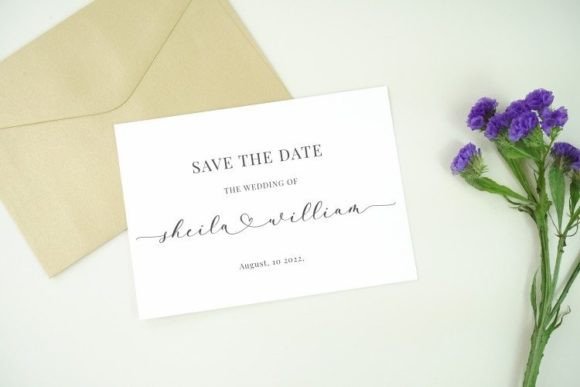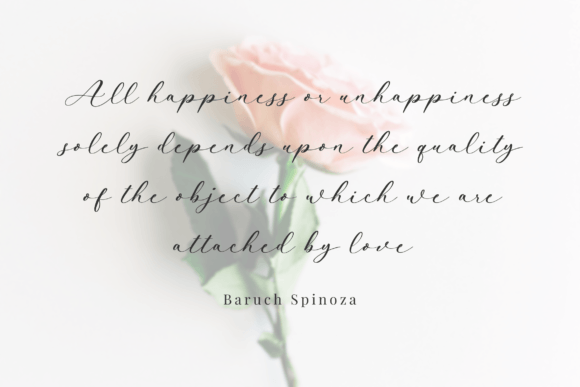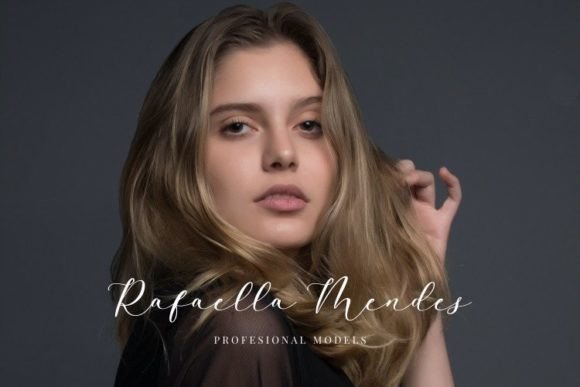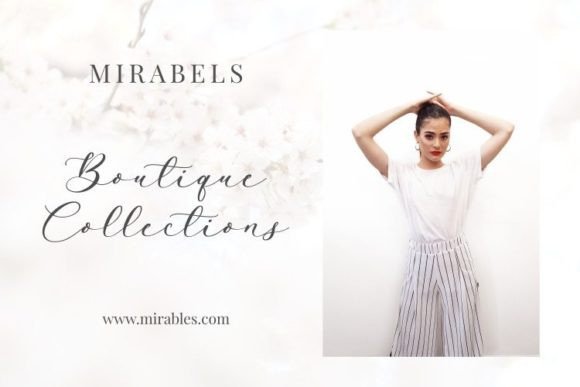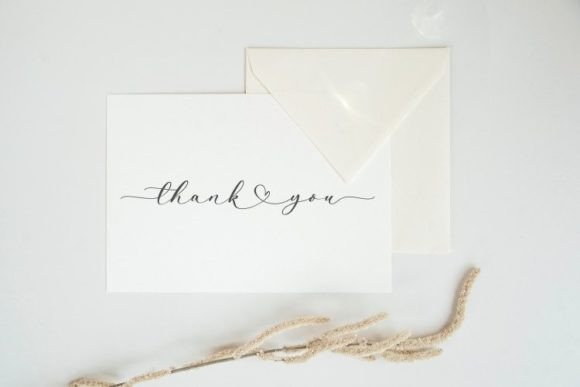
Introduction to Harmony Melody Font
As designers, we’ve all been there – staring at a blank canvas, trying to bring a concept to life. The blank page stares back, and our minds go blank. But what if the right font could spark that creative flame? Enter the Harmony Melody Font, a beautiful script font that exudes elegance and sophistication.
With its unique and timeless style, the Harmony Melody Font is the perfect design resource for any creative project. Whether you’re working on a wedding invitation, a branding campaign, or a simple blog post, this font is sure to elevate your design to the next level. And with its PUA encoding, accessing all glyphs and swashes is a breeze, making it a high-quality addition to any designer’s toolkit.
Key Features of Harmony Melody Font
- Unique, elegant design with a mix of modern and classic elements, perfect for creative projects that require a touch of sophistication.
- Designed to be a versatile design resource, suitable for use in logos, typography, and other creative endeavors.
Honest Review: Harmony Melody Font
As a designer, I’m always on the lookout for high-quality design resources to elevate my creative projects. The Harmony Melody Font has caught my attention, and I’m excited to share my honest review.
- Beautiful, elegant script style that adds a touch of sophistication to any design.
- High quality, detailed typography that’s perfect for creative projects like invitations, posters, and branding materials.
- Only available in a limited number of font styles and weights.
- No bold or condensed font options, which may limit its versatility.
Overall, I’m impressed with the Harmony Melody Font’s elegance and sophistication. While it may have some limitations, its high quality and free download make it a great addition to any designer’s toolkit. If you’re looking for a beautiful, elegant script font for your creative projects, the Harmony Melody Font is definitely worth checking out.
Tips for Getting the Most Out of Harmony Melody Font
Use the Harmony Melody Font with a transparent background to give your design a high-quality, professional look. Experiment with different font sizes and styles to create a unique and creative project. This font is a great design resource for anyone looking to add a touch of elegance to their work.
The Harmony Melody Font is perfect for a variety of creative projects, including wedding invitations, birthday cards, and business presentations. Its high-quality design and transparent background make it a great choice for anyone looking to add a touch of sophistication to their work.